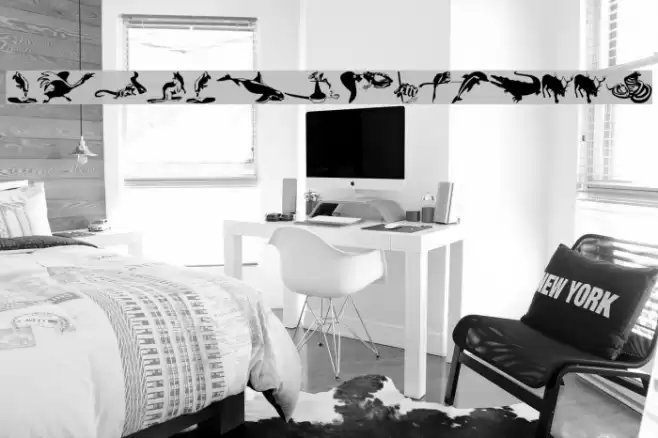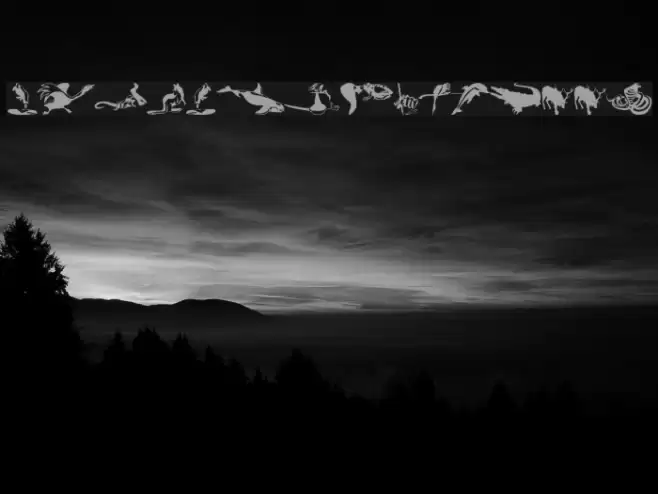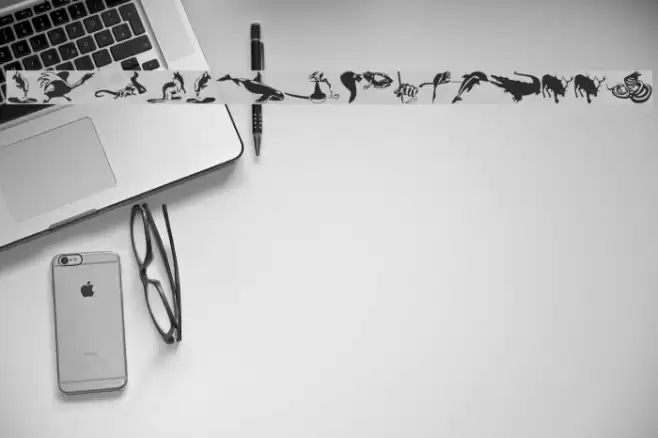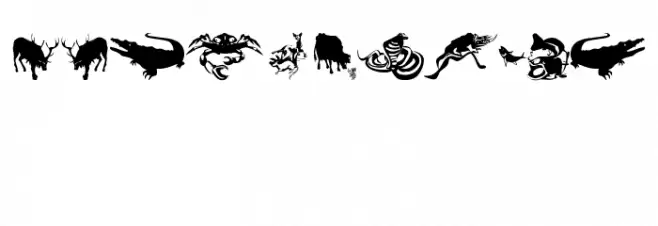
AnimalsPrey-2006 Font
AnimalsPrey-2006 Description
A decorative display font composed of animal silhouette illustrations forming each character, with a mix of predator and prey animals in dynamic poses. The glyphs are highly detailed and visually complex, making each letter unique and illustrative rather than traditionally typographic.
Animal silhouettes create each character in a decorative, illustrative style from Uncategorized fonts.
- Proposed Projects: Children’s books, wildlife posters, educational materials, themed event invitations, creative branding.
- Overall Style: Decorative, Illustrative, Playful
- Use Case: Logos, Posters, Headlines, Themed Graphics